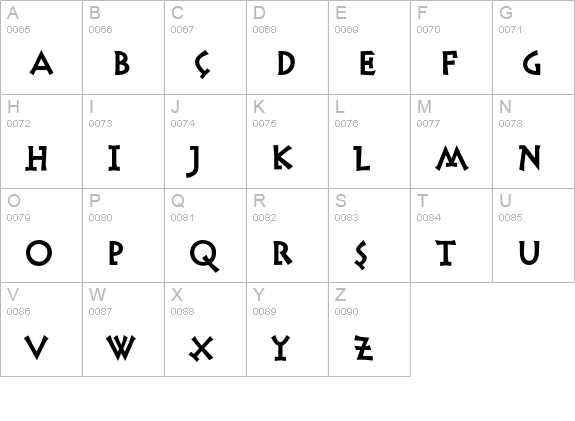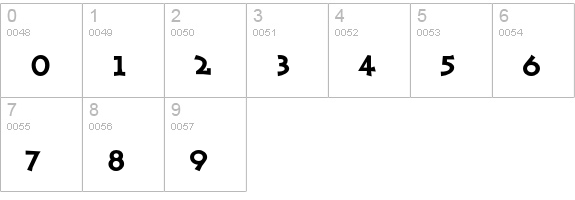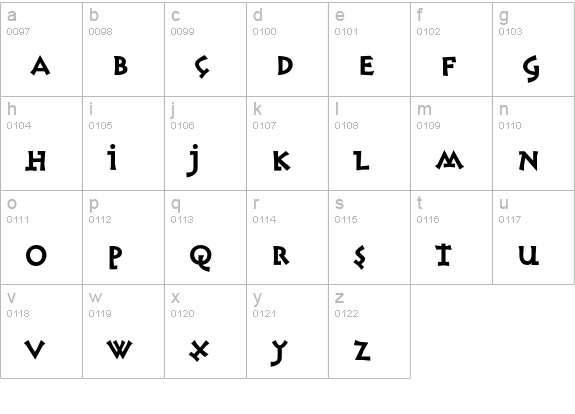
Chelsea-Bold Font Details
Chelsea-Bold is a strong, high-contrast variant in the Chelsea typeface family \xE2\x80\x94 well suited to headlines, attention-grabbing titles, and strong calls-to-action.
Chelsea-Bold is a stunning and versatile font that exudes elegance and sophistication. With its bold and eye-catching design, this font is perfect for adding a touch of luxury to any project. Whether you're designing a logo, creating a poster, or crafting a stylish invitation, Chelsea-Bold is sure to make a statement. The best part? Chelsea-Bold is available for free download at FontsMarket.com. This means you can easily access this beautiful font and elevate your designs without breaking the bank. Don't miss out on the opportunity to enhance your projects with the timeless beauty of Chelsea-Bold. Download it today and let your creativity shine!